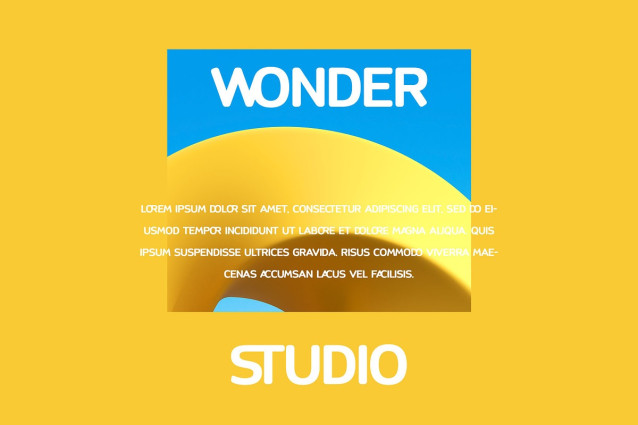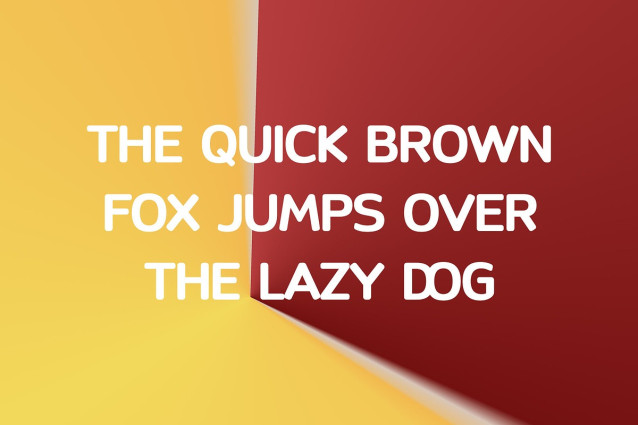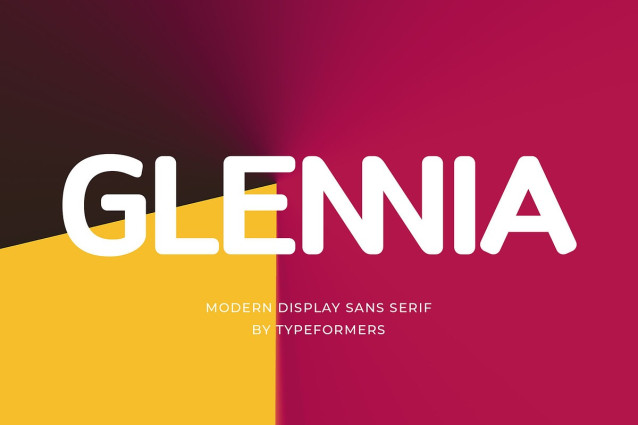
Glennia Font
Glennia Font – Modern Display Sans Serif, is a modern and simple font, best used as a display for headings, logos, branding, magazines, product packaging and invitations.